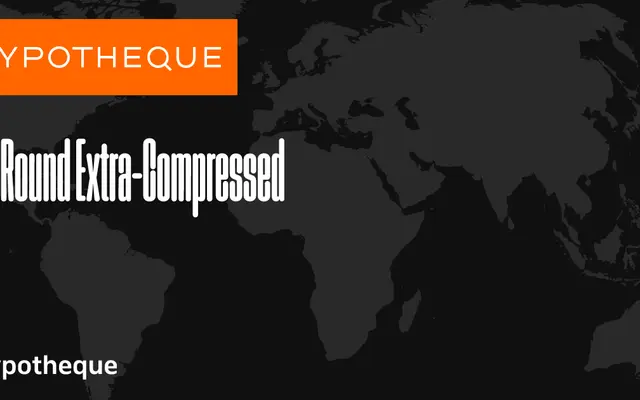
Zed Round Extra-Compressed
Zed Round Extra-Compressed specimen from Typotheque
One subfamily within Typotheque's vast Zed system, offering rounded terminals in an extreme extra-compressed width with nine weights, slanted and backslanted variants, and variable font support.
Zed Round Extra-Compressed sits at the narrowest end of the Round branch of the Zed system, a family spanning Display, Round and Text grades across nine width variants each. The Round cut adds softened terminals to the core grotesque structure, and the extra-compressed proportion makes it suited to high-impact headline setting at tight column widths. Twenty-seven styles cover nine weights from Hairline to Black, each available in upright, slanted and backslanted forms, with a variable font edition also offered.
Part of the expansive Zed system, the Round Extra-Compressed subfamily is a display-oriented variable grotesque with rounded terminals, extreme width compression, and an unusually broad weight range from Hairline to Black including slanted and backslanted variants.